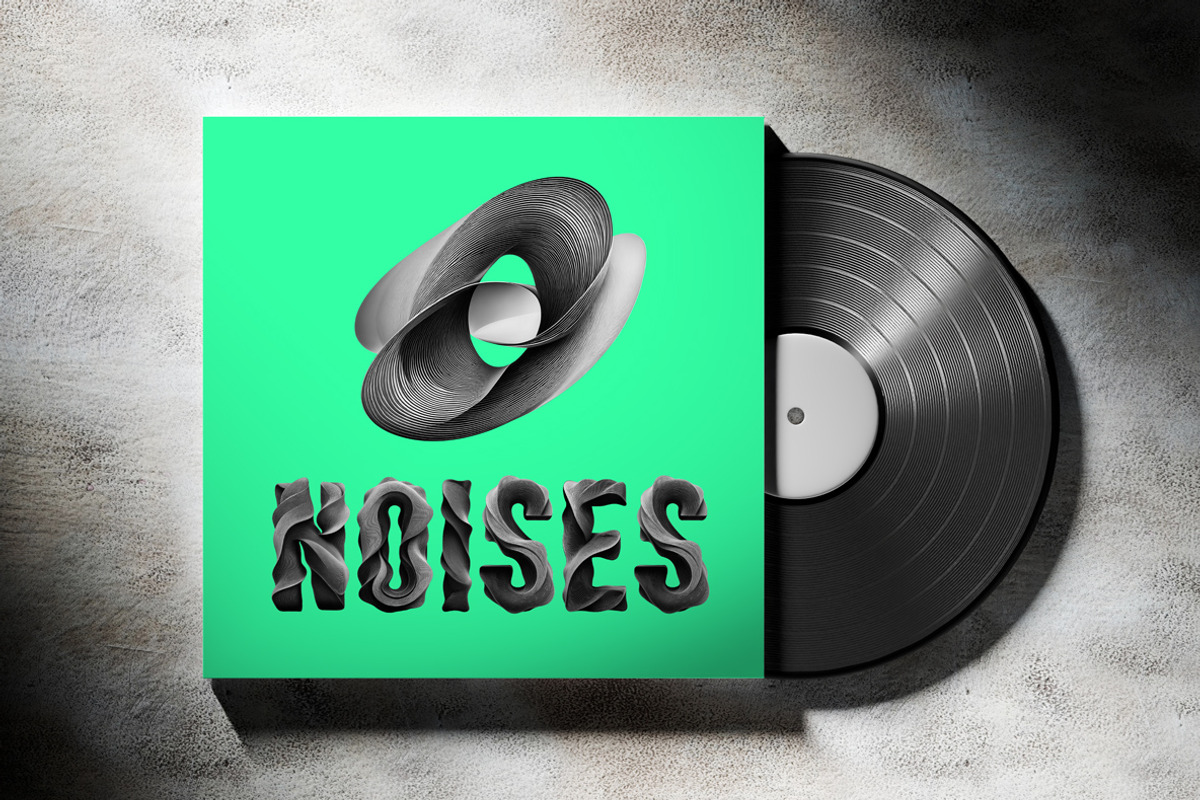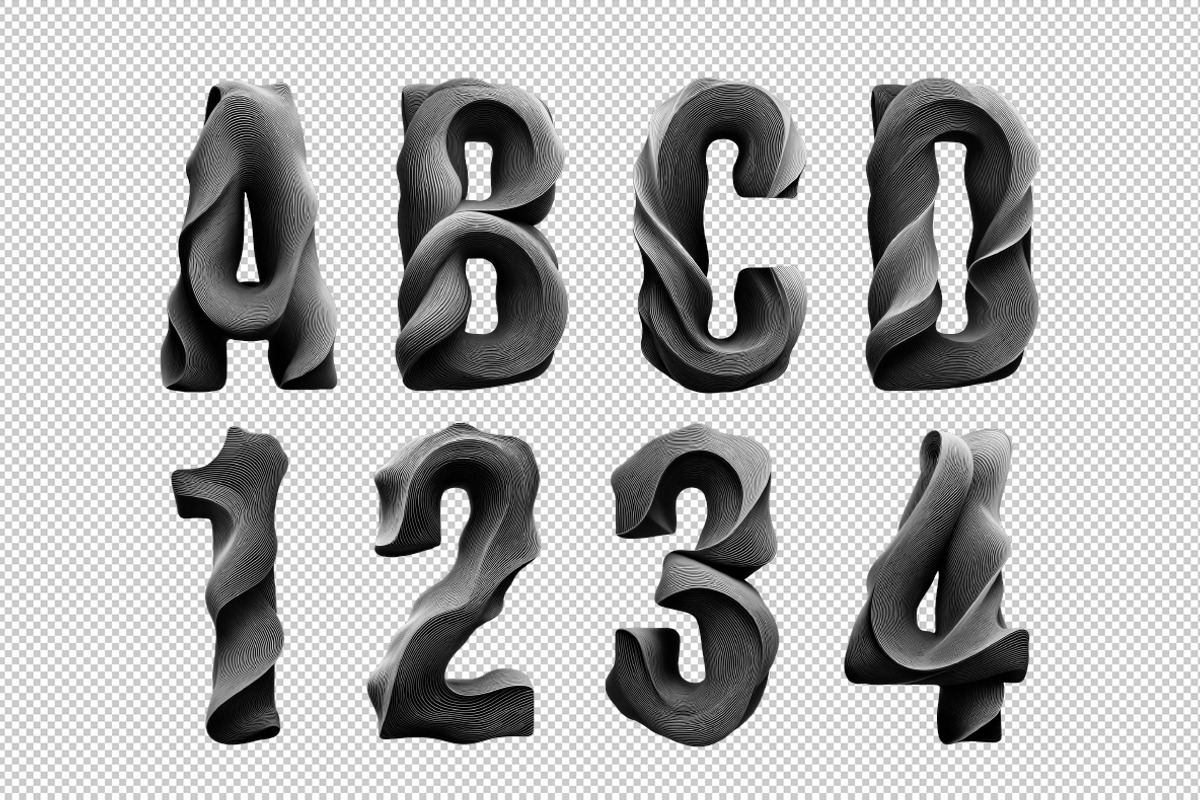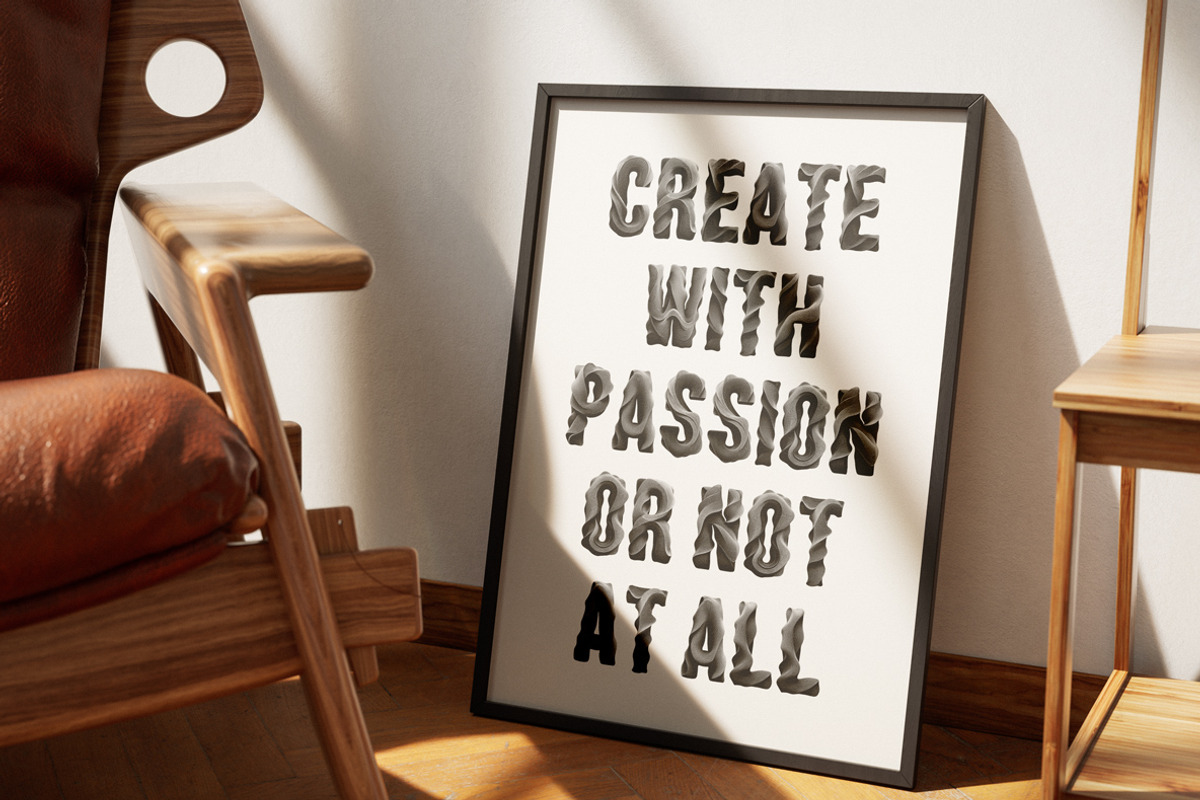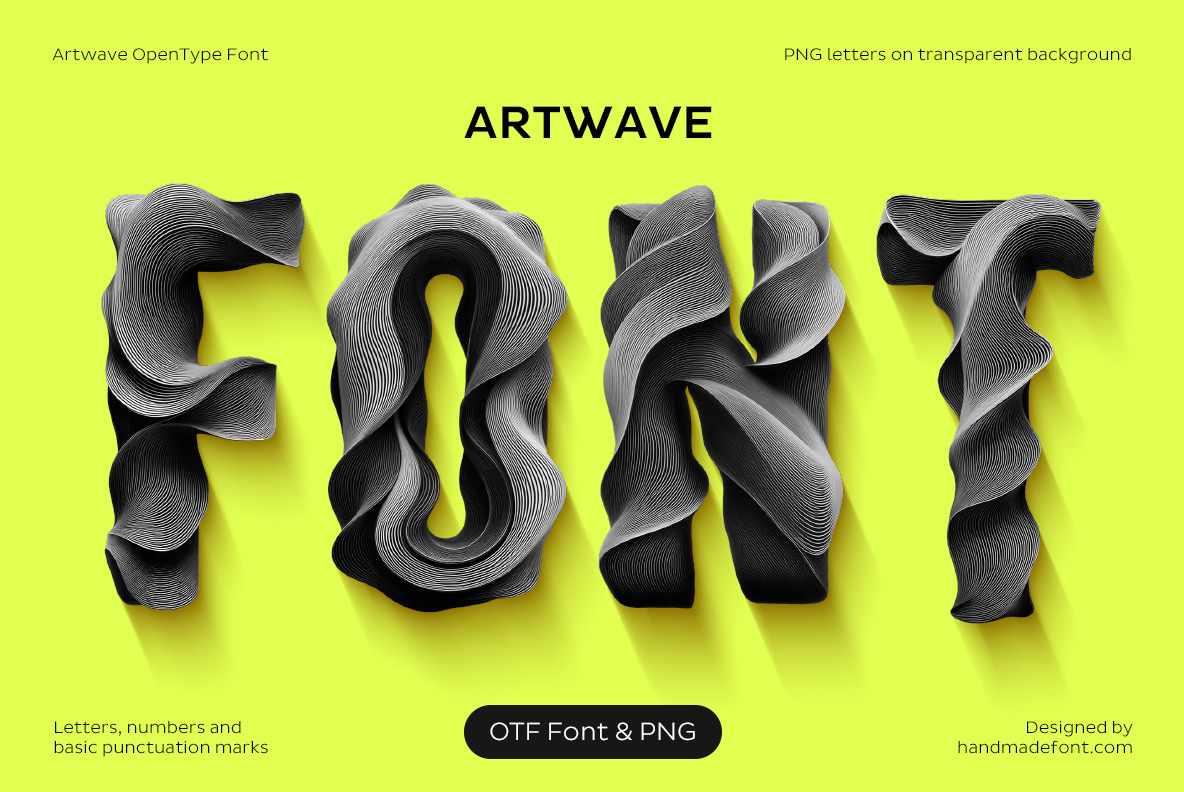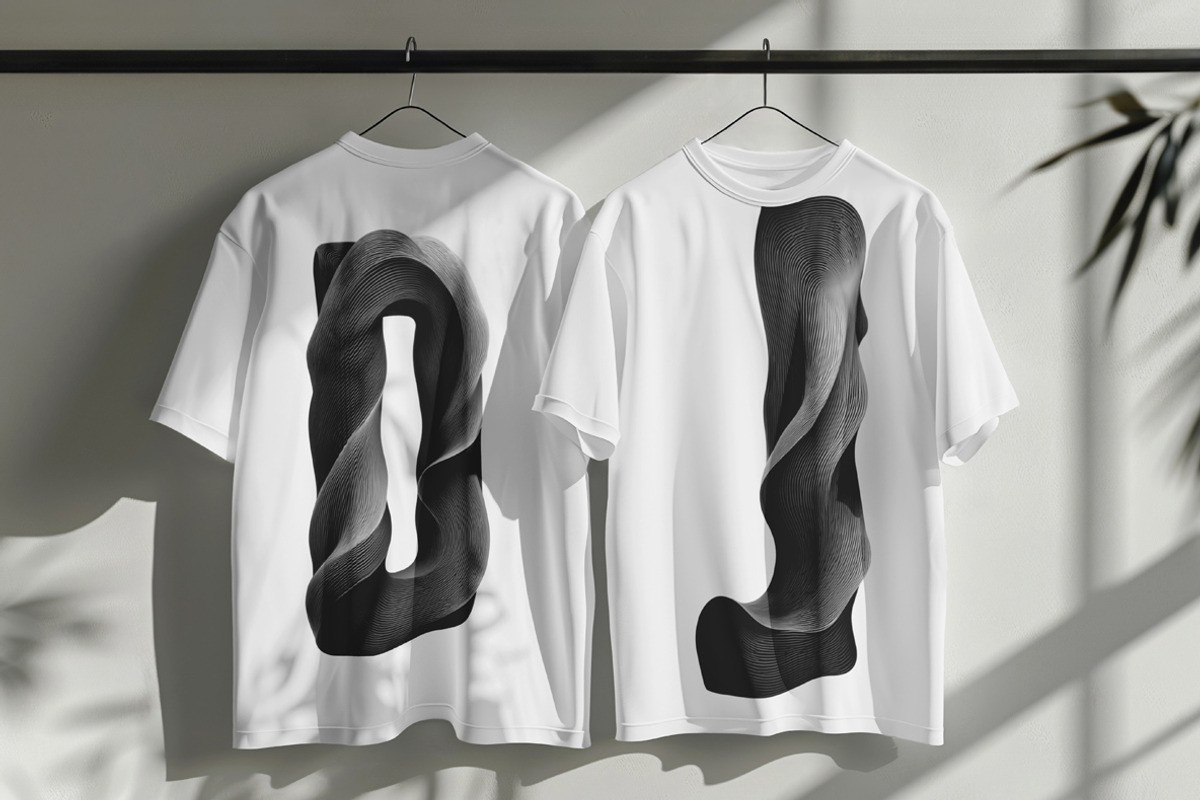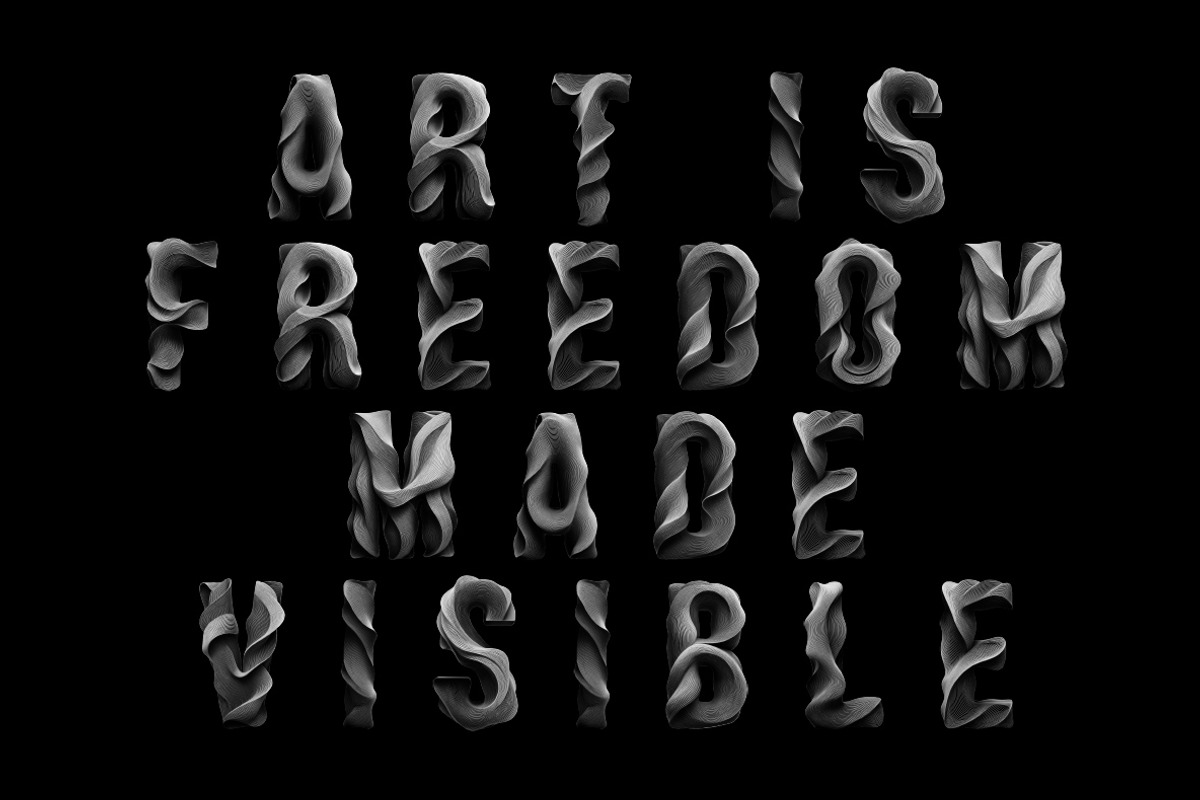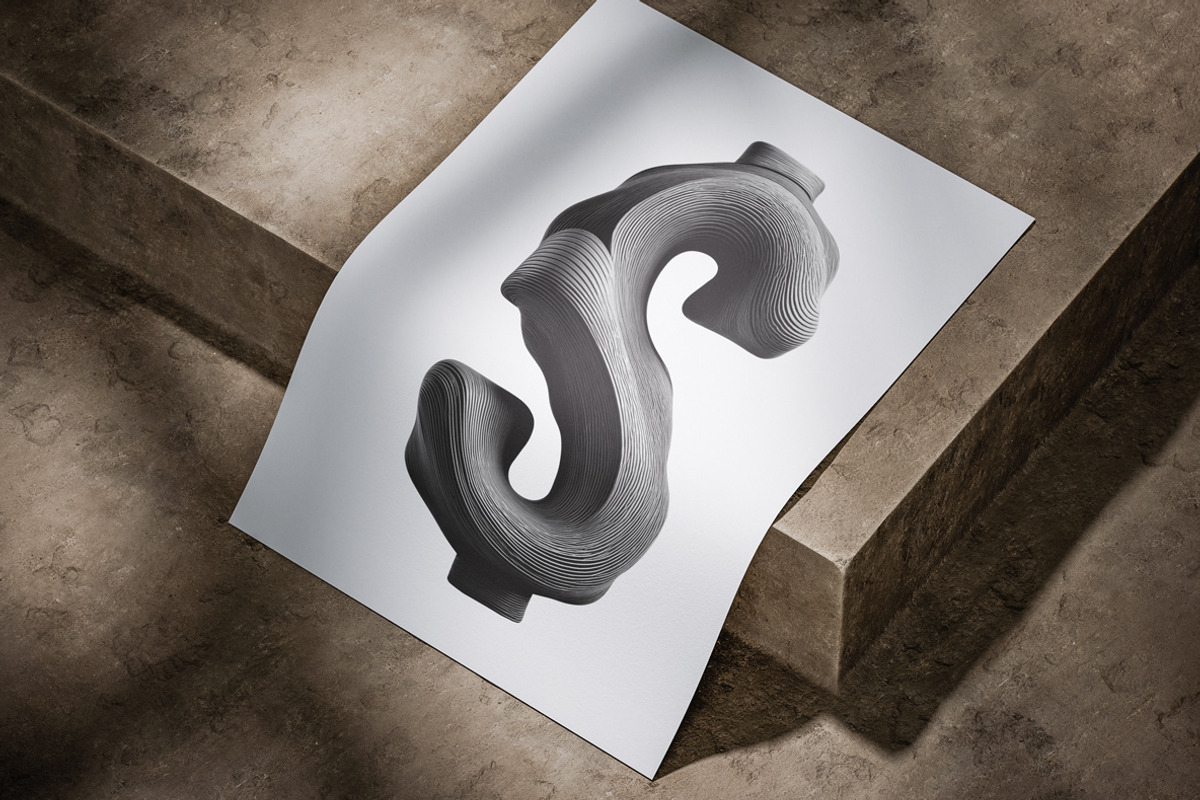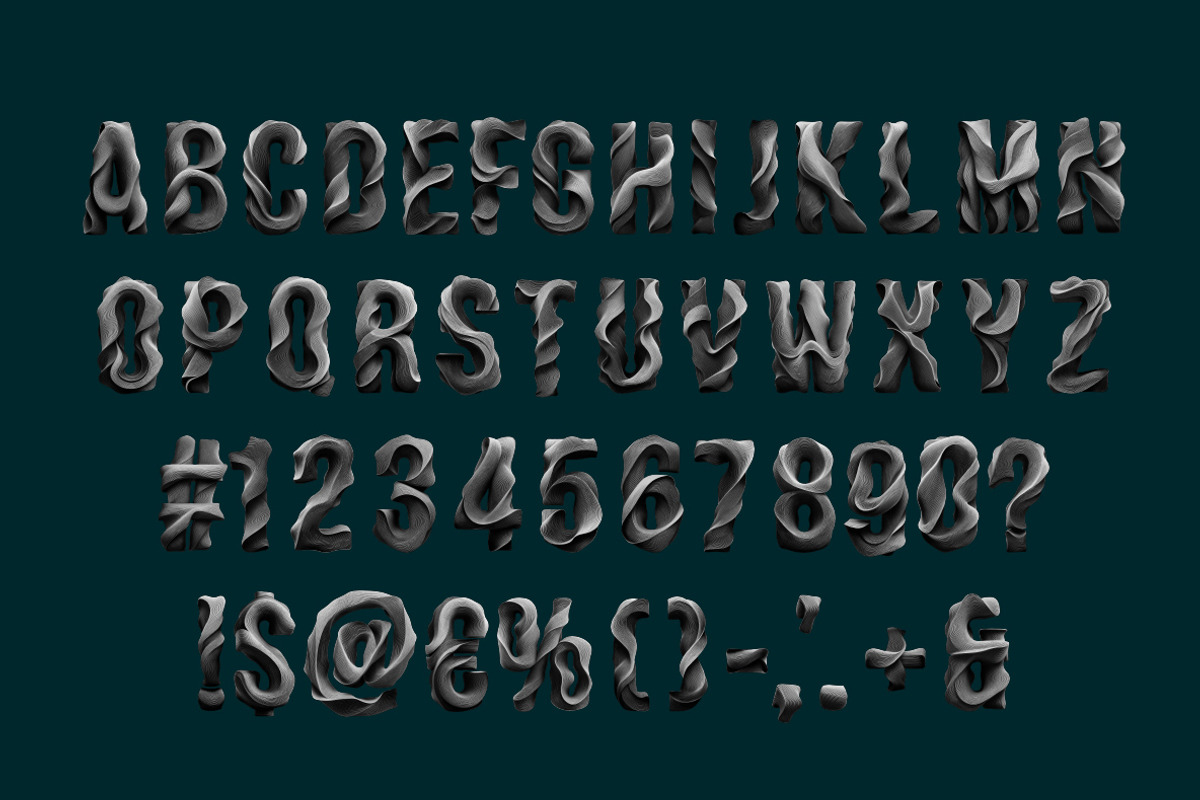
Artwave Font
Edgy, bold, and deliciously distorted—Artwave Font isn’t just a typeface, it’s a rebellious art experiment masquerading as letters. Each character twists and flows like a digital calligraphy masterpiece sculpted by an avant-garde artist with a love for chaos. This art-inspired font bends the rules of typography, fusing abstract curves and wavy lines into a hypnotic, black-and-white spectacle. It’s custom-designed for creatives who refuse to settle for boring. Whether you're crafting a futuristic logo or summoning a design revolution, Artwave Font turns ordinary words into a visual feast. Warning: prolonged exposure may cause spontaneous artistic genius.
A high definition OpenType Font. Contains uppercase characters, numerals and basic punctuation. (Draw height roughly 800 pixels). All letters and glyphs that comprises this font you can see on the preview.
- Letters : A B C D E F G H I J K L M N O P Q R S T U V W X Y Z
- Numbers : 0 1 2 3 4 5 6 7 8 9
- Others : ! ? - . ' $ € % & # @